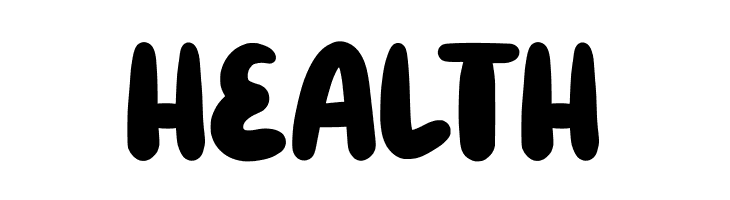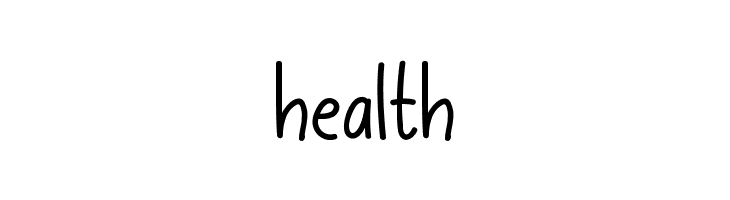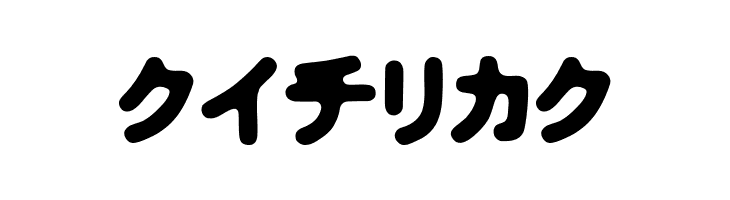
A dynamic and flowing script font with elegant curves and smooth connections.
A bold, angular typeface with a futuristic and dynamic style.
A bold, decorative font with unique embellishments and a playful edge.
A playful, bold script font with a handwritten style.
An elegant, cursive font with a sophisticated, handwritten style.
A playful, handwritten font with smooth curves and a casual style.
A bold, playful font with rounded edges and a smooth, flowing style.
Elegant handwritten script with connected, flowing strokes.